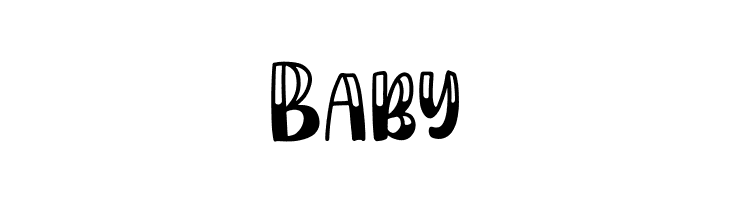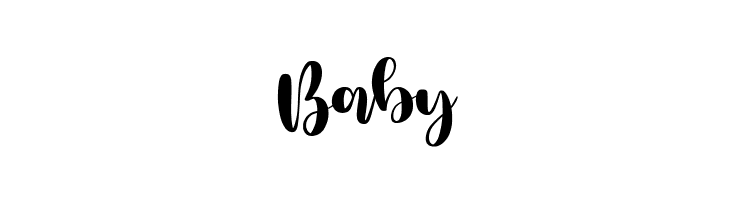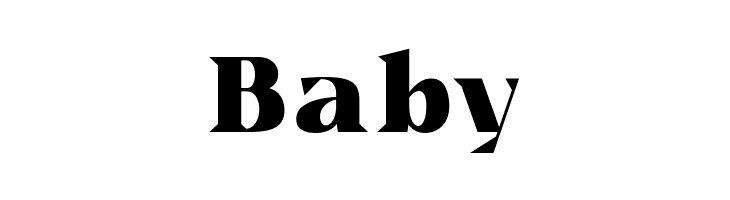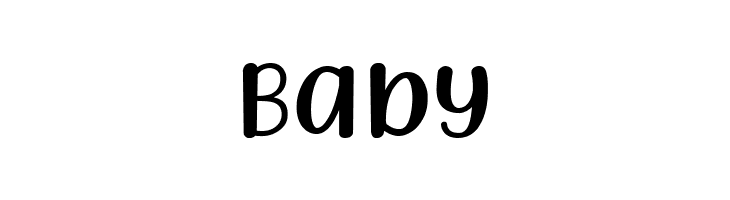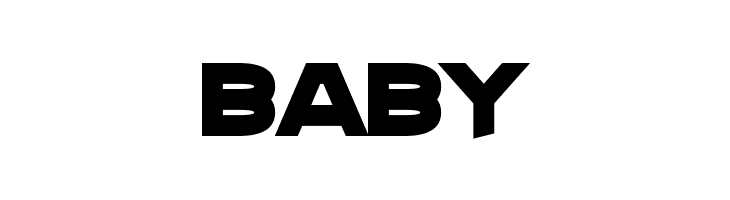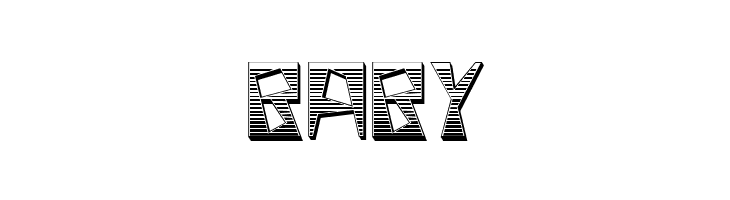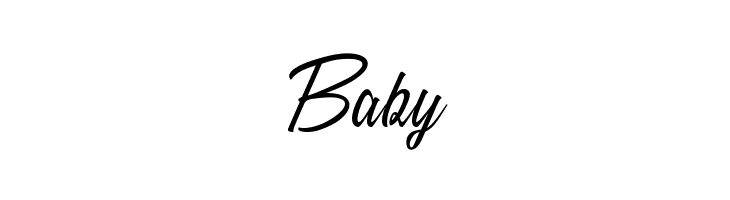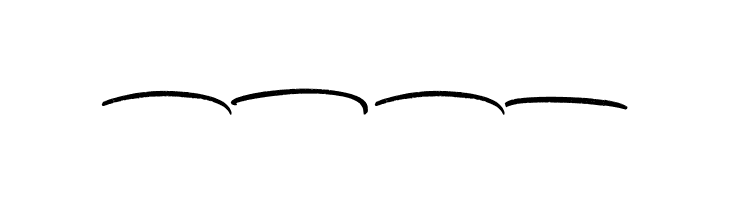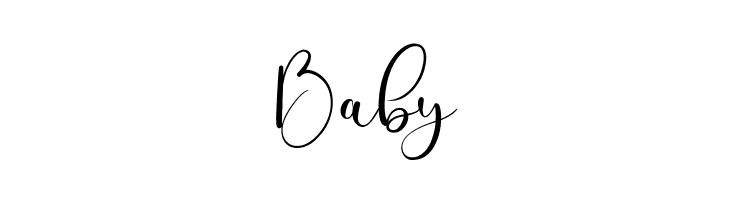
A casual handwritten font with dynamic strokes and a lively appearance.
A bold, handwritten font with dynamic and fluid strokes.
An elegant, flowing script font with graceful loops and a sophisticated charm.
A bold, playful font with rounded edges and unique curves.
A playful and elegant script font with a flowing, handwritten style.
A graceful and elegant script font with flowing, connected strokes.
A playful, handwritten font with bold strokes and a dynamic, informal style.
A bold, angular font with a Gothic-inspired design and modern appeal.
A bold, italic font with sharp, angular edges and a dynamic style.
A bold, angular font with a dynamic oblique slant and geometric influence.
A bold, italic font with angular, geometric characters and high contrast.
A bold, angular, and oblique font with a modern, edgy style.
A bold serif font with a modern yet classic style, perfect for impactful designs.
A bold, high-contrast serif font with a modern yet classic appeal.
A bold, geometric font with striped patterns and angular shapes.
A lively and energetic handwritten font with bold, fluid strokes.
A playful, bold, and handwritten-style font with thick strokes and rounded edges.
A playful, handwritten font with a smooth, flowing style.
A playful and whimsical font with rounded, bold letterforms.
An elegant, flowing script font with a natural handwriting style.
A graceful script font with a cursive, handwritten style.
A bold, cursive script font with high contrast and fluid strokes.
A bold, geometric sans-serif font with a modern and structured design.
A bold, expressive script font with a brush-like texture and dynamic strokes.
A bold, expressive script font with fluid, interconnected strokes and a handcrafted feel.
A whimsical and flowing script font with elegant, fluid letterforms.
An elegant swash font with flowing, artistic lines.
A decorative font with elegant swashes and calligraphic style.
A lively and flowing script font with elegant cursive letterforms.
A bold, flowing script font with elegant, connected letters.
A bold, handwritten-style font with a dynamic and expressive appearance.
A bold, vintage-style serif font with strong, squared serifs.
A playful, handwritten font with smooth, rounded strokes and tight spacing.
A playful, handwritten font with tall, narrow letterforms and a casual style.
A bold, high-contrast serif font with dramatic strokes and elegant serifs.